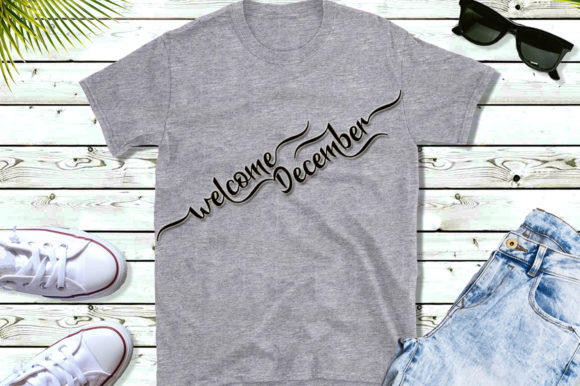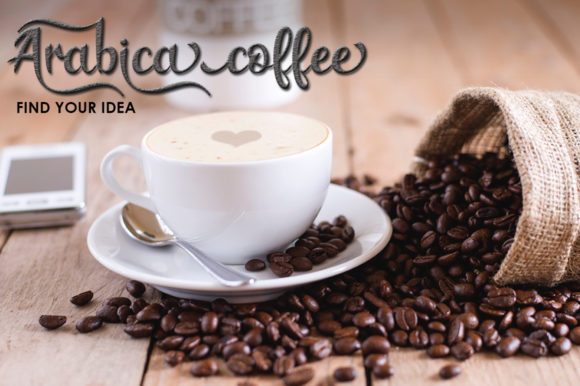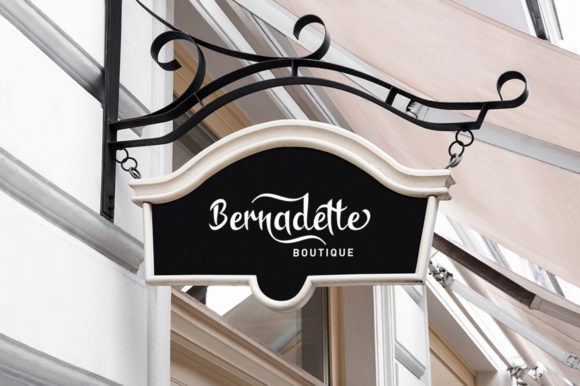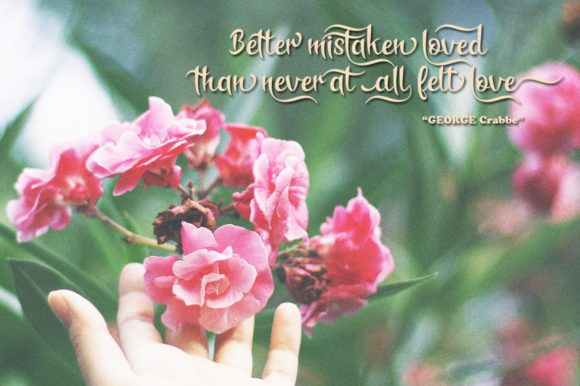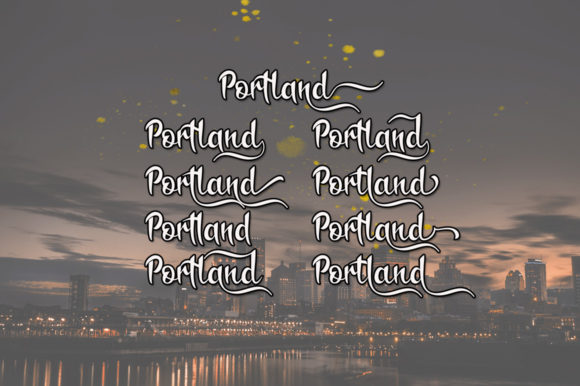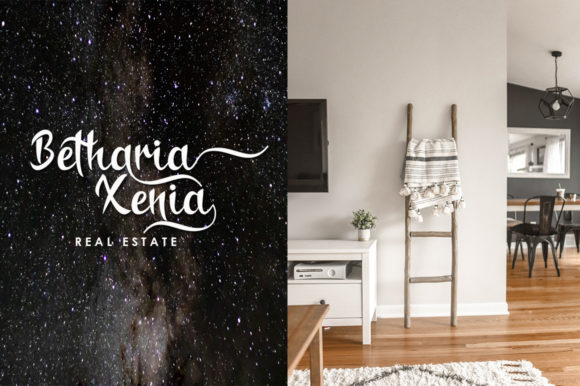
About Ambrechild Script Font
Introducing “The Ambrechild,” a highly legible script font designed to bring a fun and classic feel to your projects. This font is not just a typeface; it’s a design asset crafted with playfulness and elegance, making it perfect for a wide range of designs that require a balance between whimsy and sophistication.
“The Ambrechild” stands out with its highly legible script that manages to capture both a sense of fun and classic elegance. Whether you’re working on invitations, branding, posters, or any design that demands a playful yet refined typeface, this font delivers with its versatile and distinctive style.
Its playfulness and classic feel make “The Ambrechild” suitable for various applications. Logos designed with this font exude a balance of whimsy and professionalism, creating a memorable and friendly impression. Branding materials, posters, and invitations crafted with “The Ambrechild” carry a dynamic and elegant vibe, making them visually engaging and approachable.
The highly legible script ensures that your message is conveyed with clarity, while the playful and classic design adds a touch of charm to your creative projects.
In summary, “The Ambrechild” is more than just a font; it’s a design companion that brings a highly legible script style with a fun and classic feel to your projects. Embrace its versatility for branding, invitations, posters, and more, and let “The Ambrechild” add a touch of playful elegance to your designs.